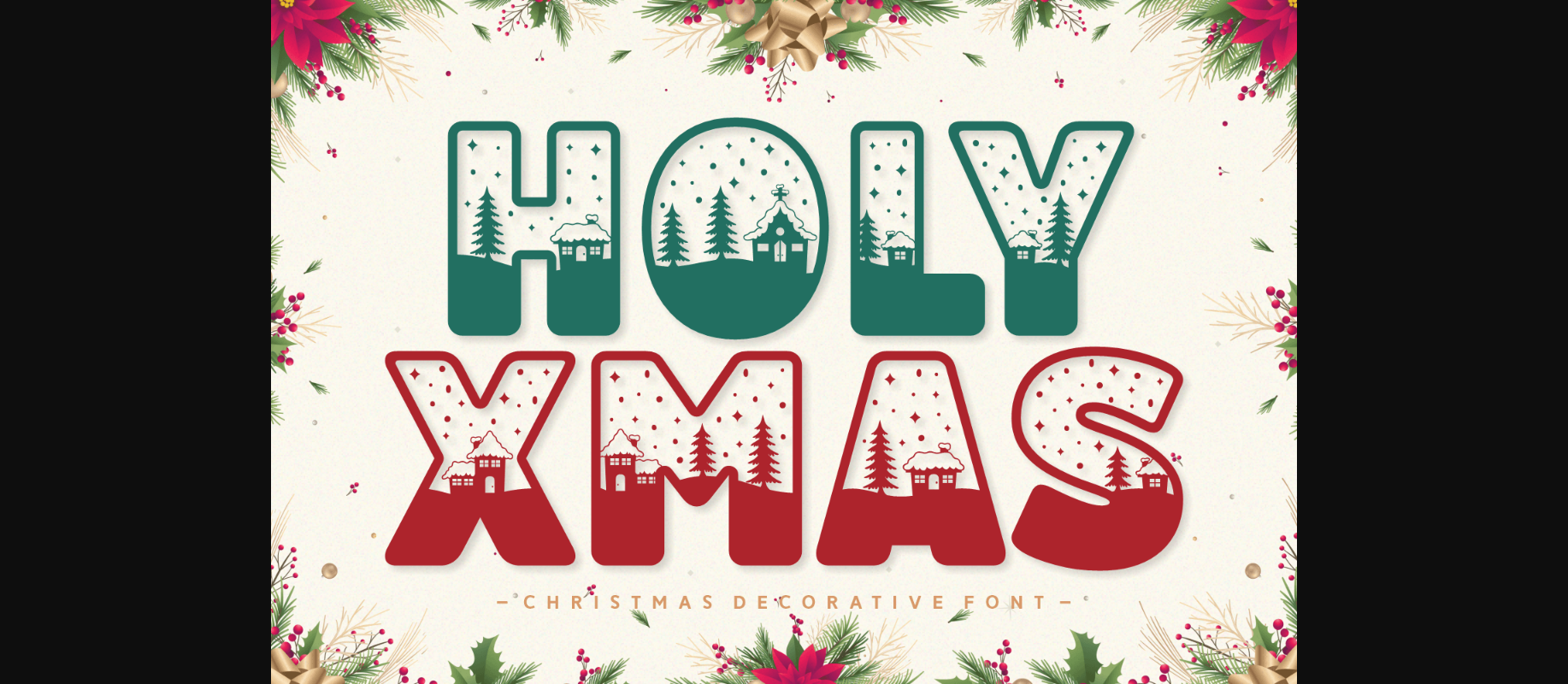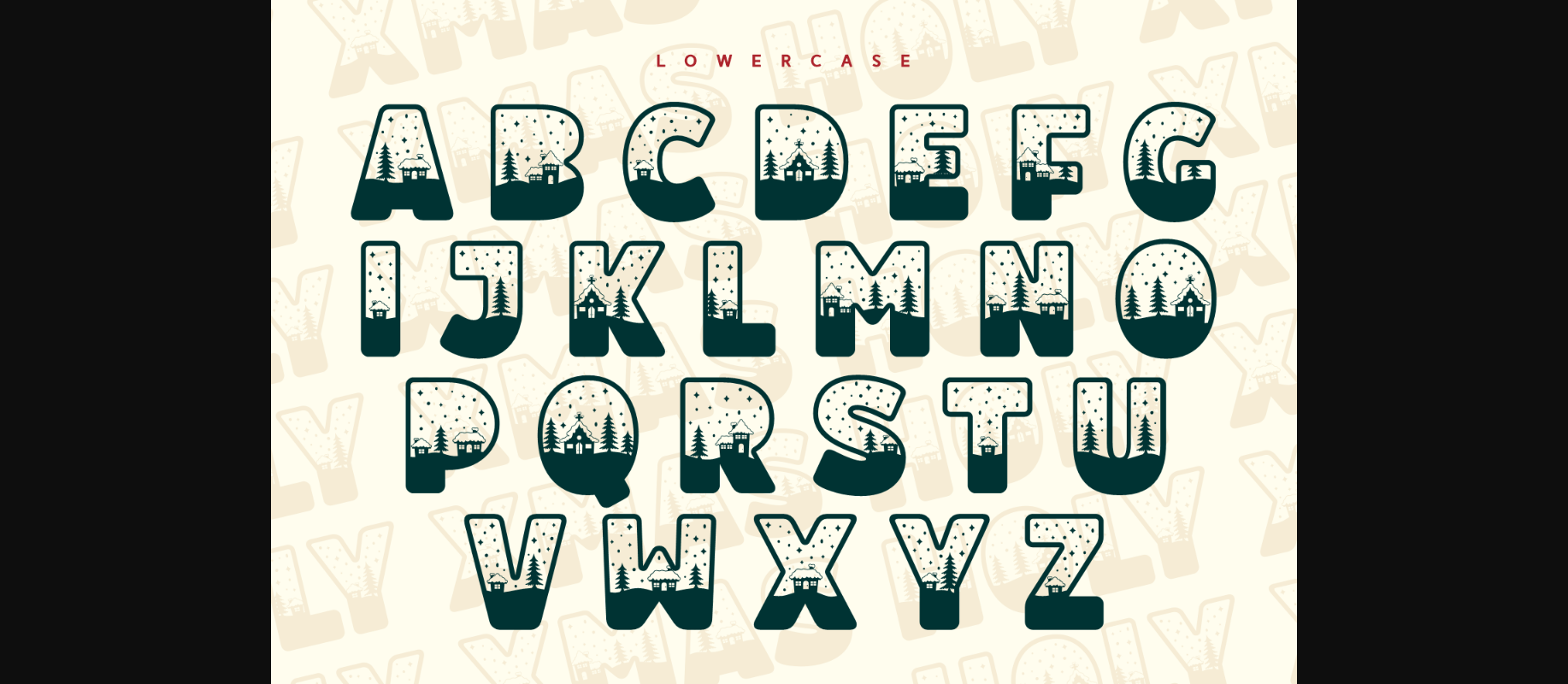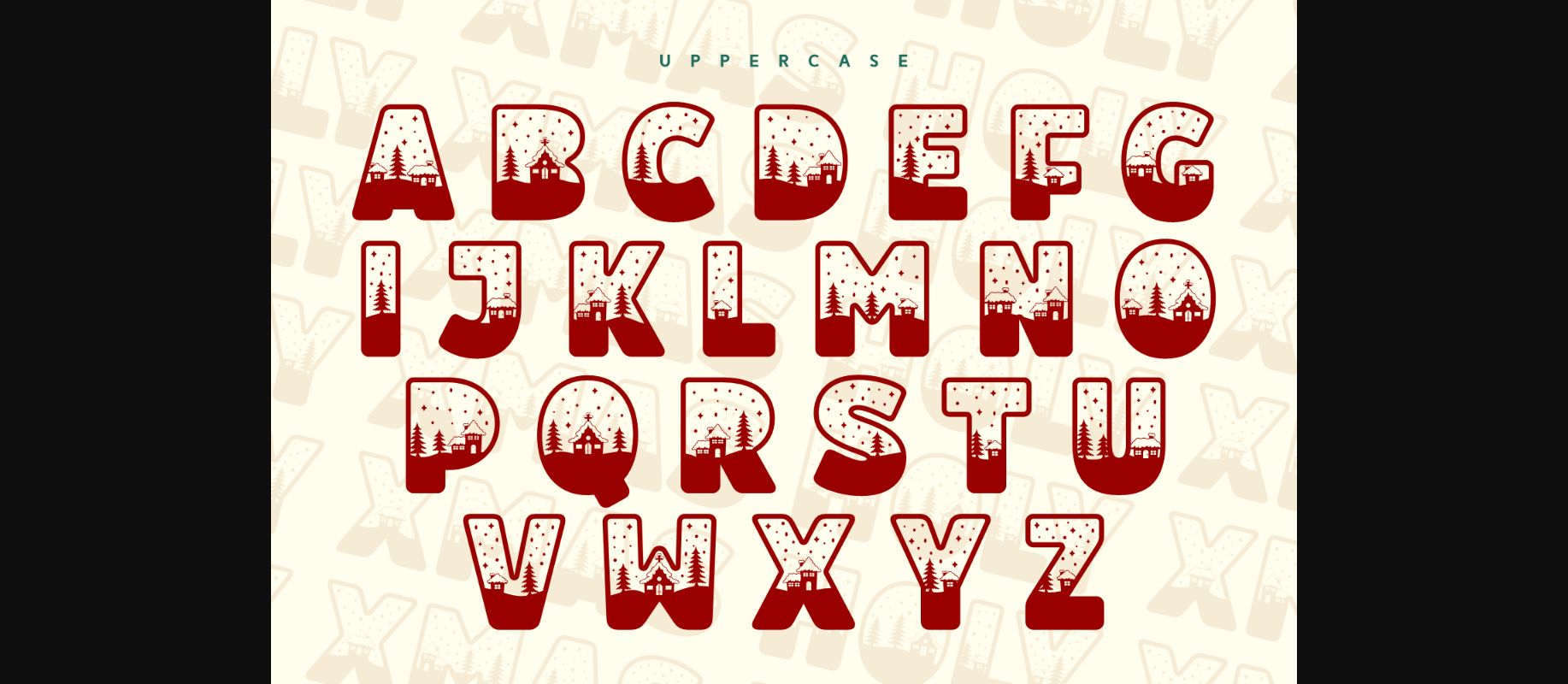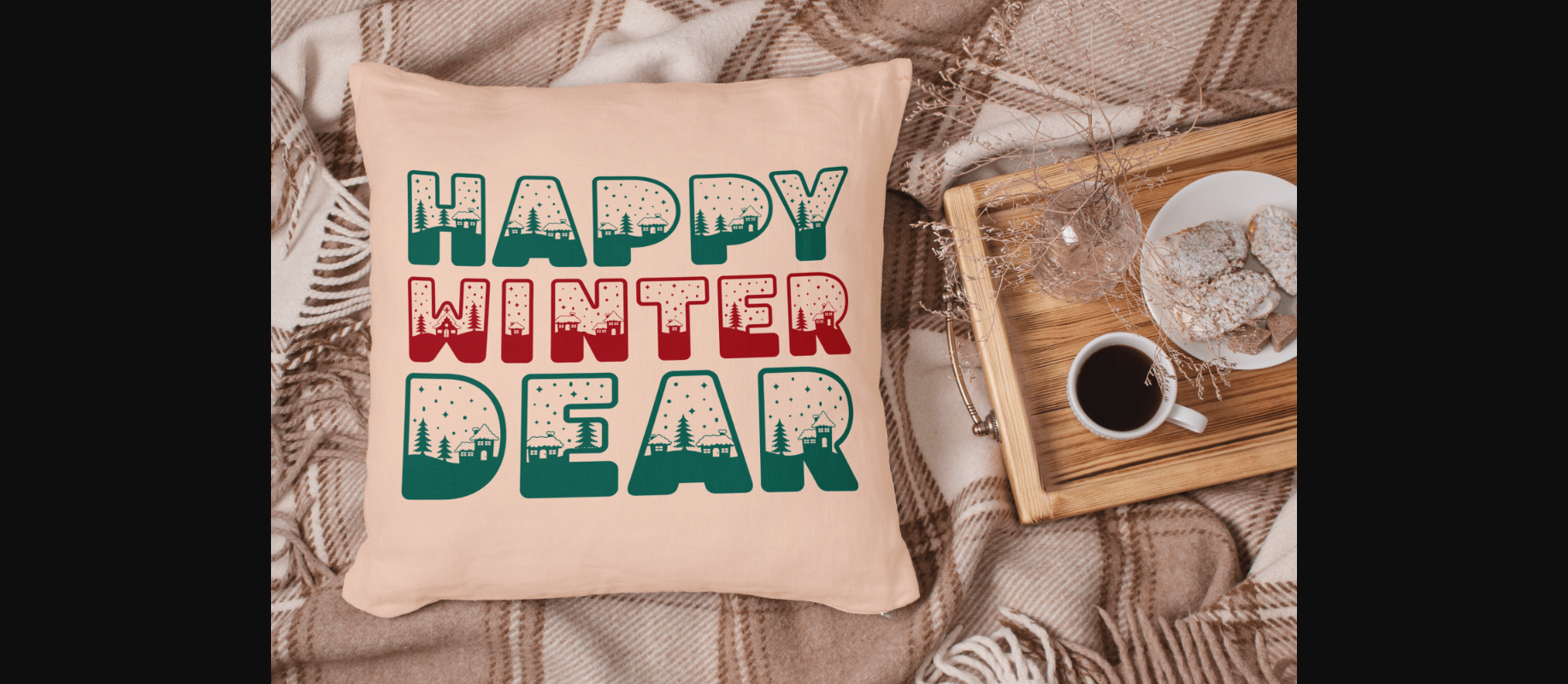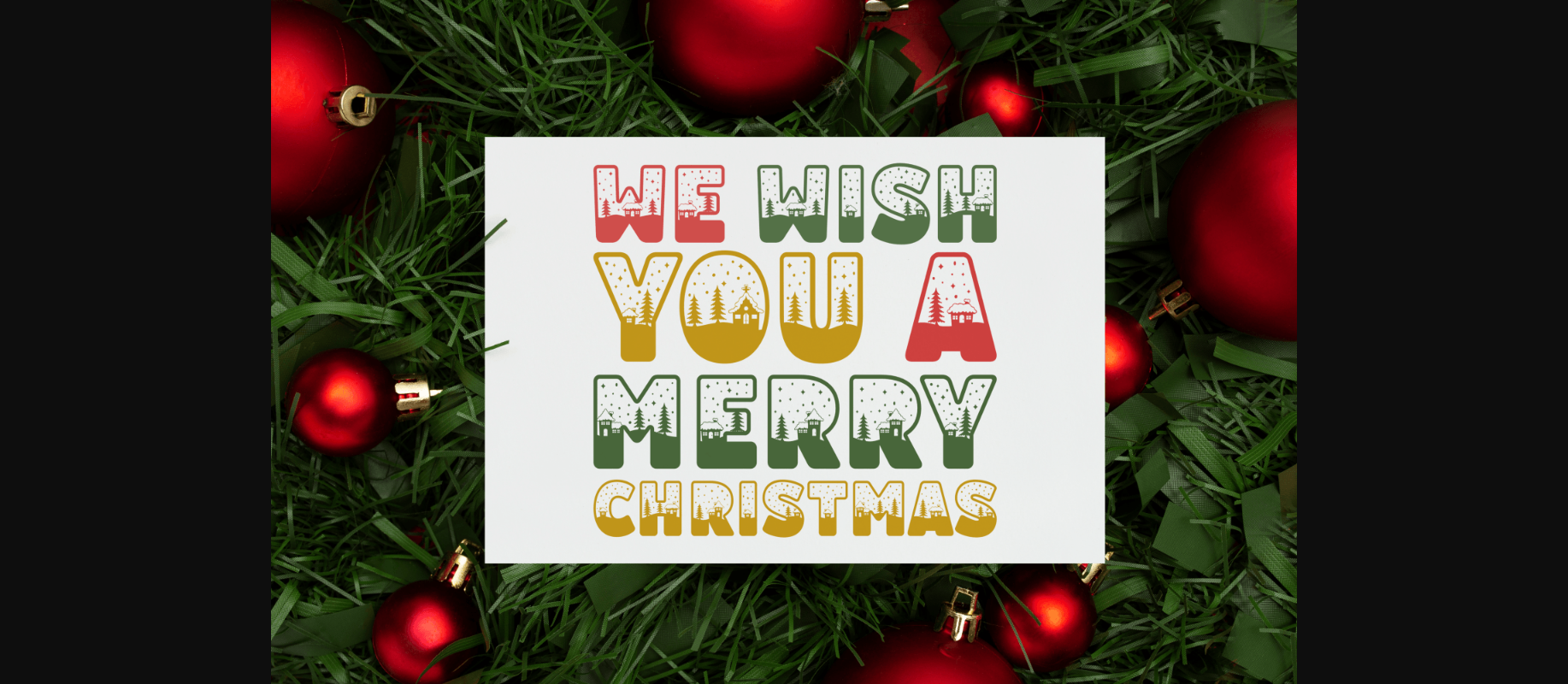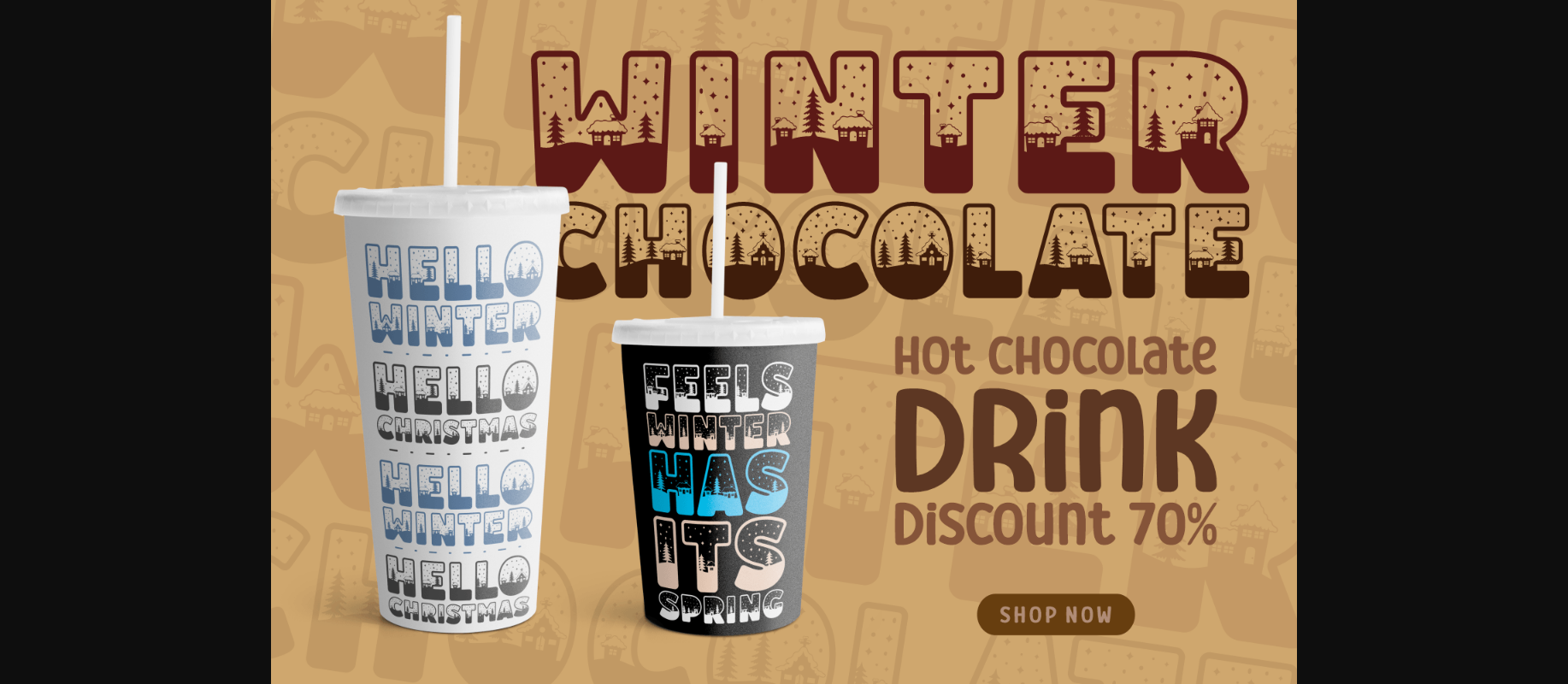
About Holy Xmas Font
Holy Xmas is a fun, unique, and festive decorative font. Add it confidently to your favorite winter creations and let yourself be amazed by the outcome generated.